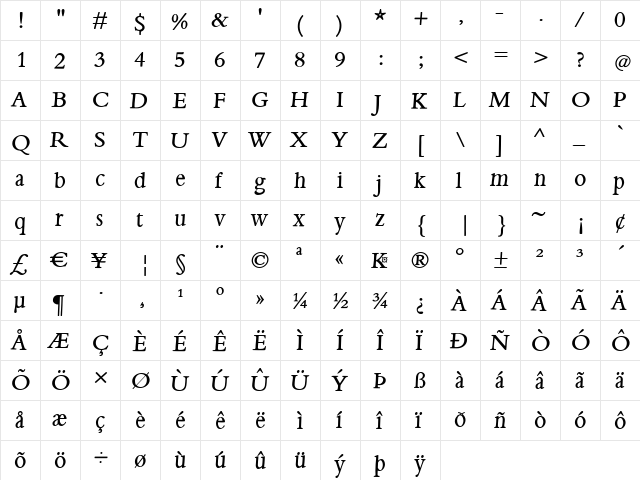
BemBolz Regular Font Preview
BemBolz Regular
Design Context for BemBolz Typeface
BemBolz is a composed and adaptable typeface that performs quietly and consistently across a wide range of design contexts.